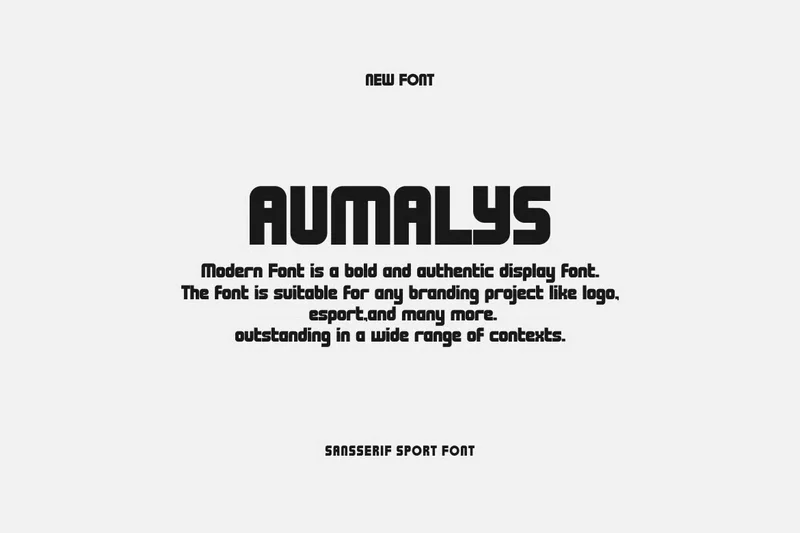
Aumalys Logo And Sport Font
Introducing our new product Aumalys Font – Modern Font
Aumalys Font- Modern Font is a bold and authentic display font. The font is suitable for any branding project like logo, esport, and many more. outstanding in a wide range of contexts.